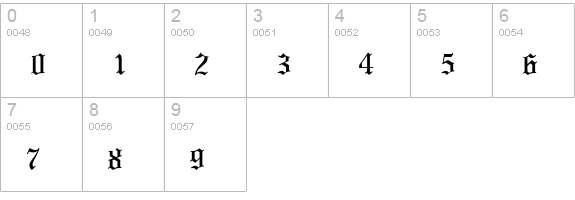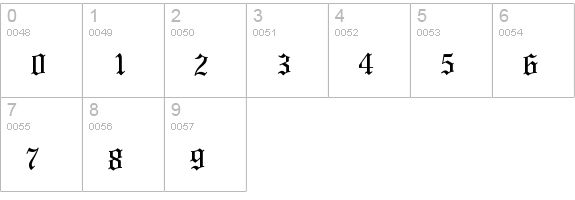
Introducing Mariage, a stunningly elegant font that is perfect for adding a touch of sophistication and charm to any design project. With its flowing lines and graceful curves, Mariage exudes a sense of timeless beauty that is sure to captivate your audience. But what truly sets Mariage apart is the fact that it is not only visually pleasing, but also freely available to download at FontsMarket.com. Yes, you read that right - this remarkable font can be yours, completely free of charge! Whether you're working on a wedding invitation, a branding project, or simply want to add a touch of elegance to your personal blog, Mariage is the ideal choice. Its versatility allows it to be used in a variety of contexts, while its exquisite details and refined design will make your project stand out from the crowd. Imagine the possibilities - from romantic wedding stationery to luxurious logos, Mariage will effortlessly elevate your designs to new heights. The combination of its delicate serifs and clean lines creates a harmonious balance, making each character a work of art in itself. With Mariage, you no longer have to compromise on quality or budget. This font is not just a beautiful addition to your collection, but a valuable asset that will enhance your creative endeavors. Download it for free at FontsMarket.com and experience the joy of having this exceptional font at your fingertips. Don't miss out on this incredible opportunity to elevate your designs and make a lasting impression. Download Mariage today and let its elegance and timeless appeal bring your projects to life.